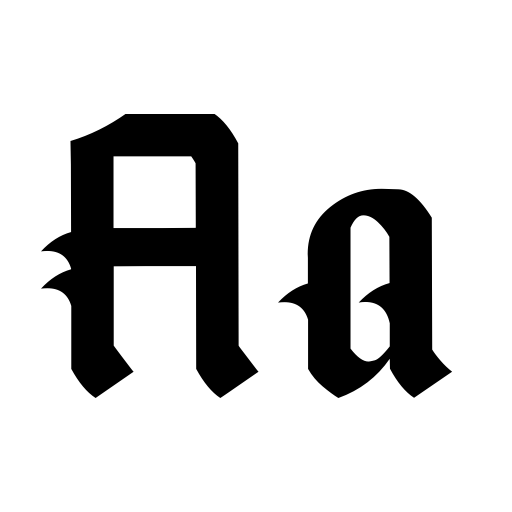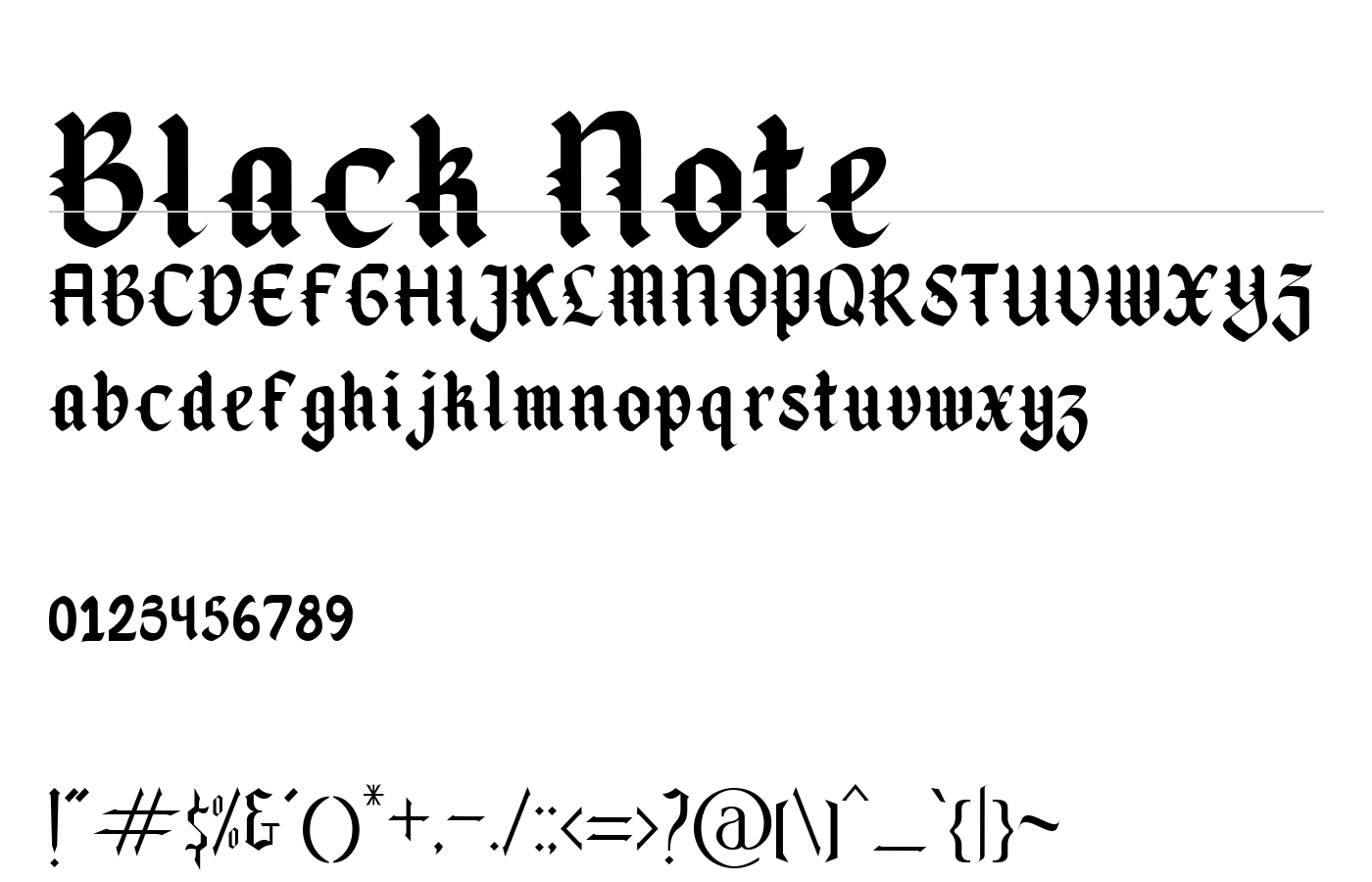
Black Note is a bold, blackletter-style serif font with a strong, historic feel characterized by high contrast between thick and thin strokes and sharp, angular serifs. Its detailed, gothic letterforms and tight spacing make it ideal for vintage-inspired designs, logos, posters, and editorial uses where a dramatic, classic, and authoritative mood is desired. This font works especially well in branding or headlines that aim to convey tradition, strength, and a touch of elegance.
Black Note Font
About Black Note Font